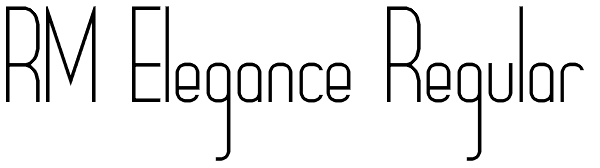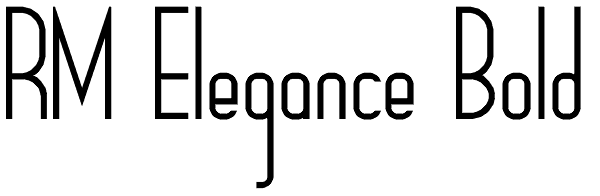
RM Elegance
With an obvious nod to Art Deco, this font offers a stylish design with distinctively elongated ascenders and descenders. Includes: Western European, Central European, Baltic & Turkish sets. Due to the modular nature of this design there may be a...
RM Elegance Regular
RM Elegance Bold